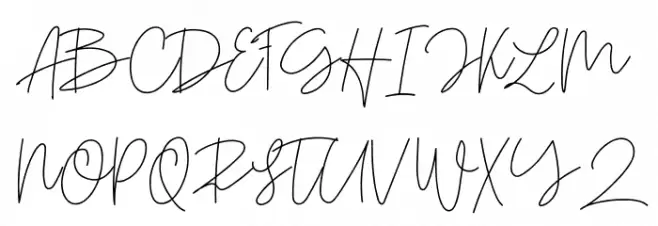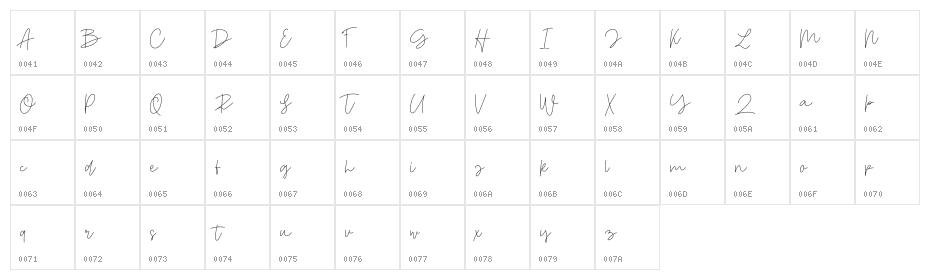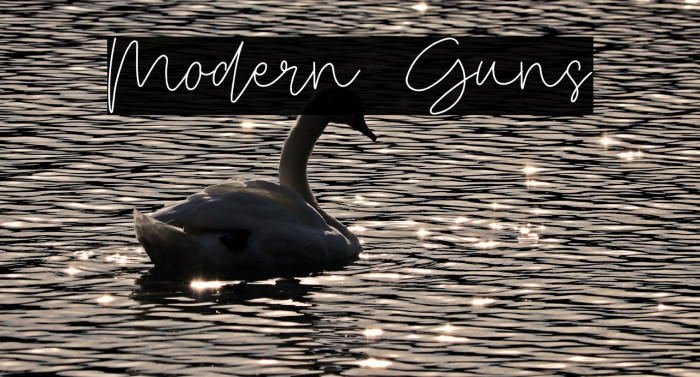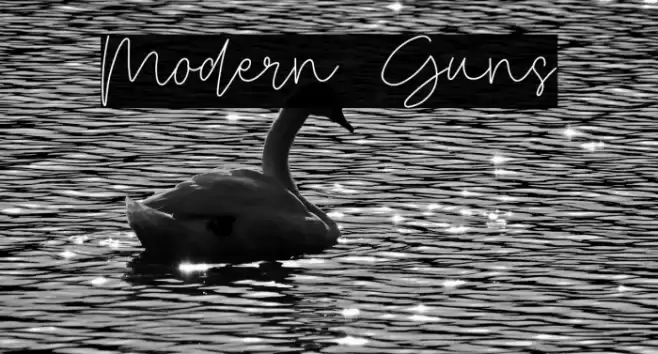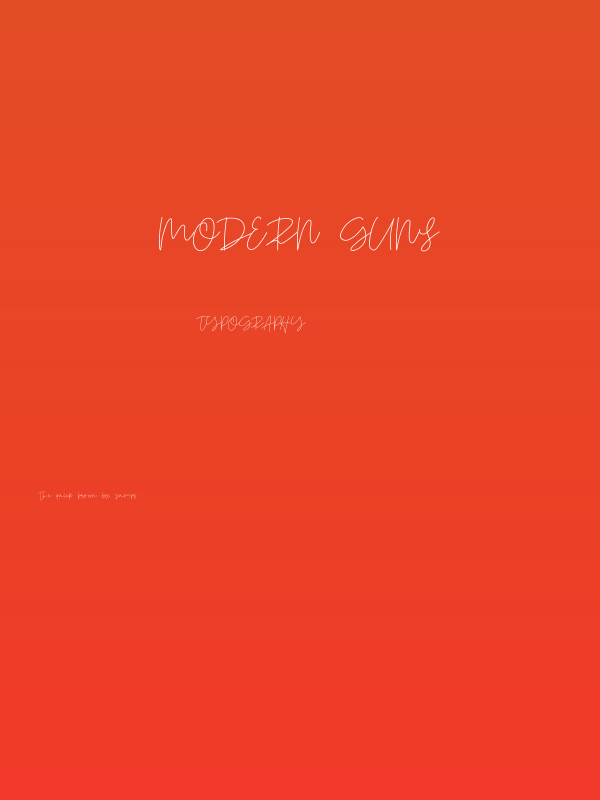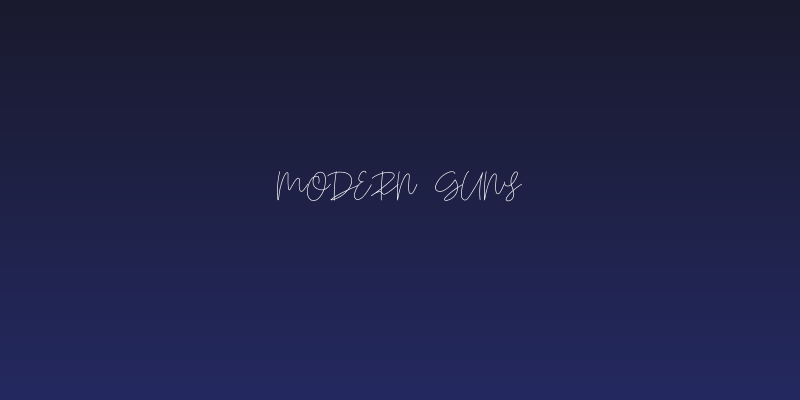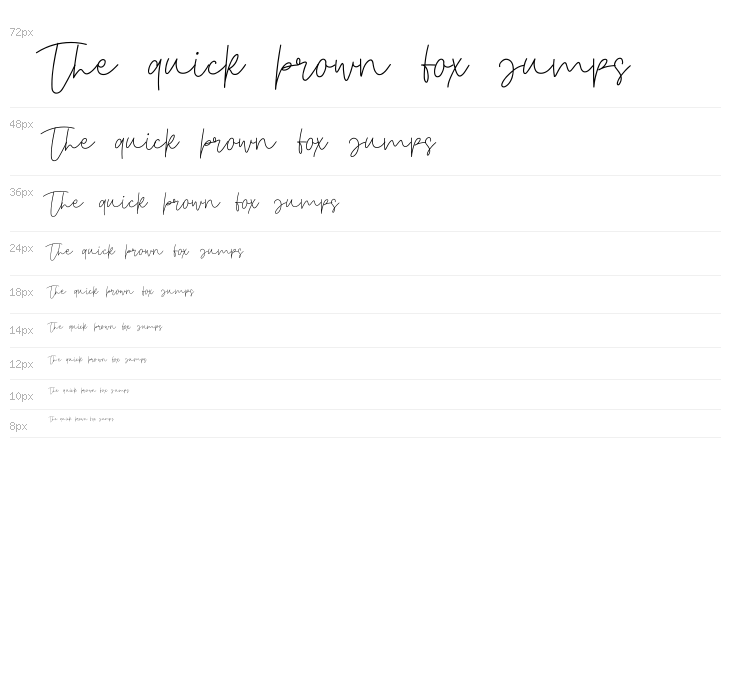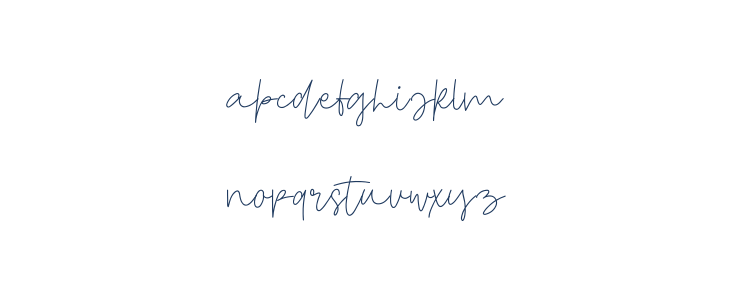
Modern Guns Font
Modern Guns Description
This font features a modern, handwritten style with a casual and flowing appearance. The letters are connected in a cursive manner, giving it a fluid and dynamic look. The strokes are thin and delicate, adding an elegant touch to the overall design. The uppercase and lowercase letters maintain a consistent style, with slight variations in height and slant, enhancing its handwritten feel. The numbers and special characters are designed to match the alphabet's aesthetic, ensuring a cohesive look across all characters. This font is perfect for projects that require a personal and informal touch, such as invitations, greeting cards, or creative branding.